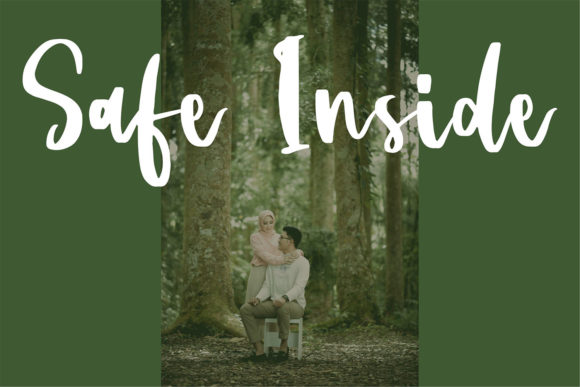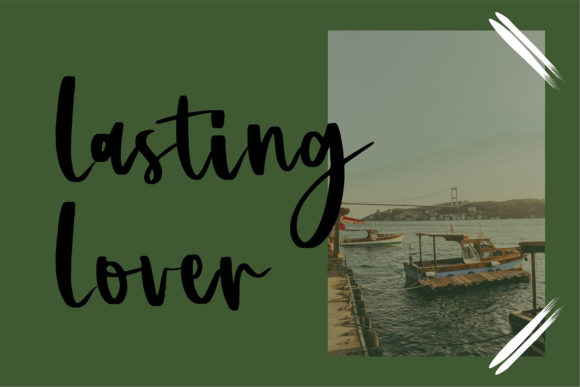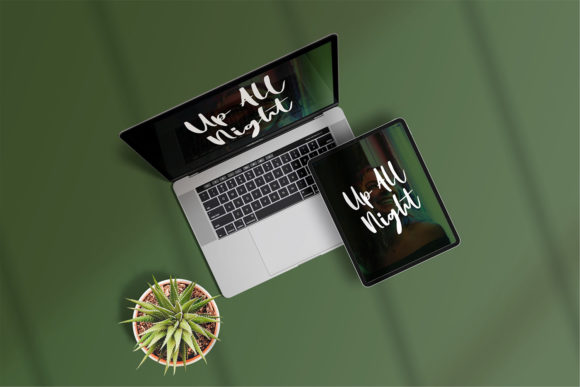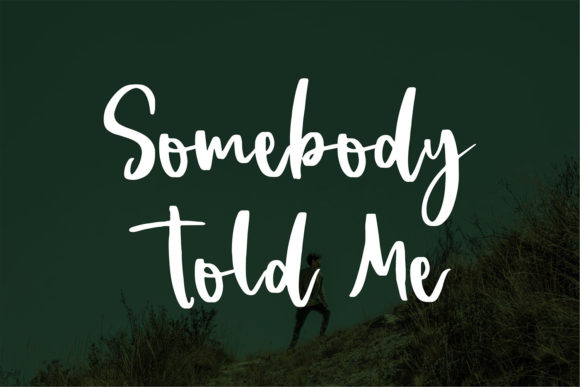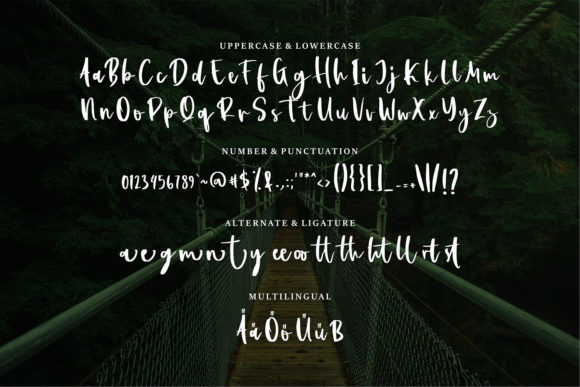
Introducing Arthut Font: The Perfect Blend of Style and Casual Charm
Are you a designer or crafter looking for a font that can add a touch of personality to your projects? Look no further than Arthut Font, a stylish and casual handwritten font that’s perfect for delivering any message with confidence, authenticity, and charm.
What Makes Arthut Font So Special?
Arthut Font is a unique and versatile font that’s designed to elevate a wide range of crafting ideas, from cards and invitations to branding, labels, and more. Its casual and handwritten style gives it a friendly and approachable feel, making it perfect for projects that require a personal touch.
Key Features of Arthut Font
- Stylish and Casual Design: Arthut Font has a stylish and casual design that’s perfect for creating modern and trendy projects.
- Handwritten Style: The font’s handwritten style gives it a personal and authentic feel that’s perfect for adding a touch of personality to your projects.
- Versatile: Arthut Font is versatile and can be used for a wide range of projects, from cards and invitations to branding and labels.
- Easy to Read: The font is easy to read, making it perfect for projects that require a clear and concise message.
- Cards and Invitations: Use Arthut Font to create personalized cards and invitations that are sure to impress.
- Branding and Packaging: Arthut Font is perfect for creating custom branding and packaging that reflects your unique style.
- Labels and Stickers: Use Arthut Font to create custom labels and stickers that add a personal touch to your projects.
- Social Media Graphics: Arthut Font can be used to create eye-catching social media graphics that are sure to grab attention.
Why Designers and Crafters Love Arthut Font
Arthut Font has become a favorite among designers and crafters due to its unique and versatile design. Here are just a few reasons why:
- Unique Design: Arthut Font has a unique design that’s sure to stand out in any project.
- Customizable: Arthut Font can be customized to fit your unique style and needs.
- High-Quality: The font is high-quality and is sure to impress in any project.
- Pair with Other Fonts: Arthut Font pairs well with other fonts, so don’t be afraid to get creative and try out different combinations.
- Use in Combination with Images: Arthut Font looks great in combination with images, so try using it to add a personal touch to your graphics.
Arthut Font is a stylish and casual handwritten font that’s perfect for delivering any message with confidence, authenticity, and charm. Its unique and versatile design makes it perfect for a wide range of crafting ideas, from cards and invitations to branding and labels. Whether you’re a designer or crafter, Arthut Font is sure to become a favorite in your collection.